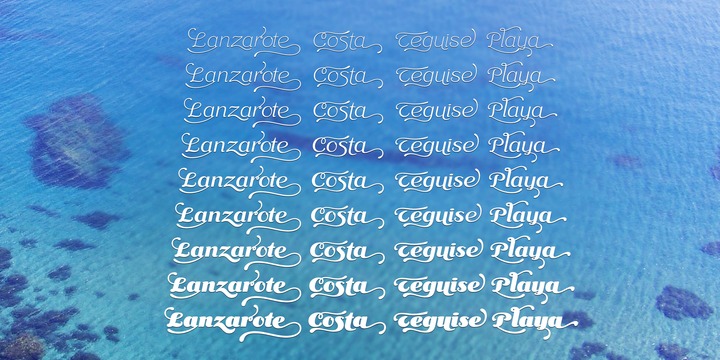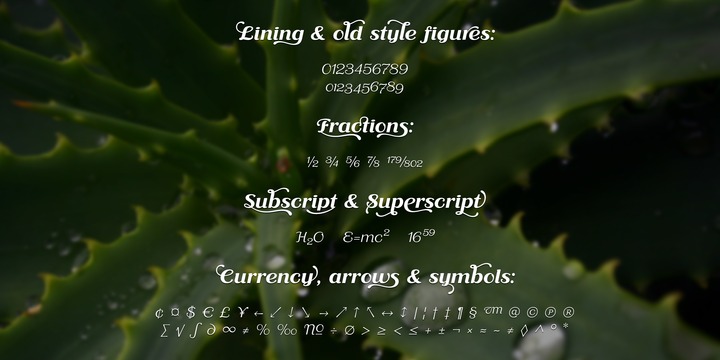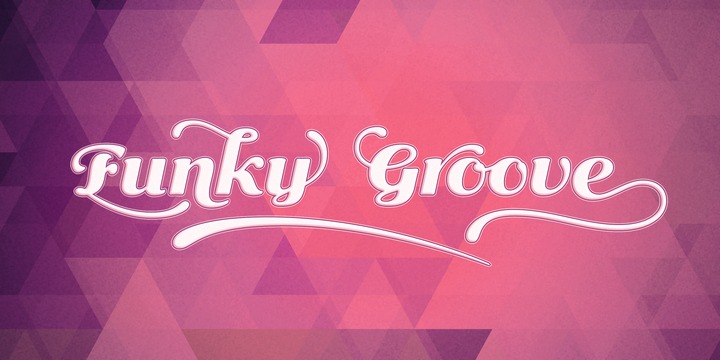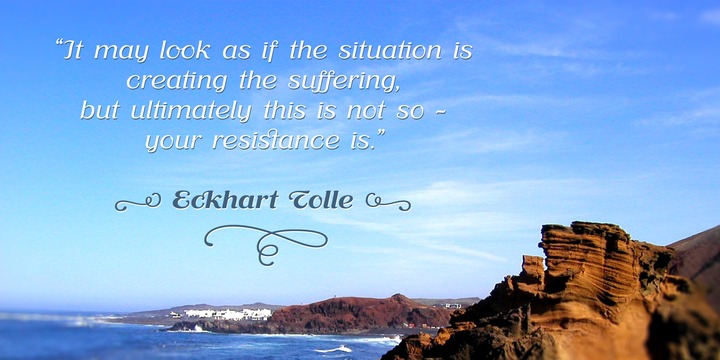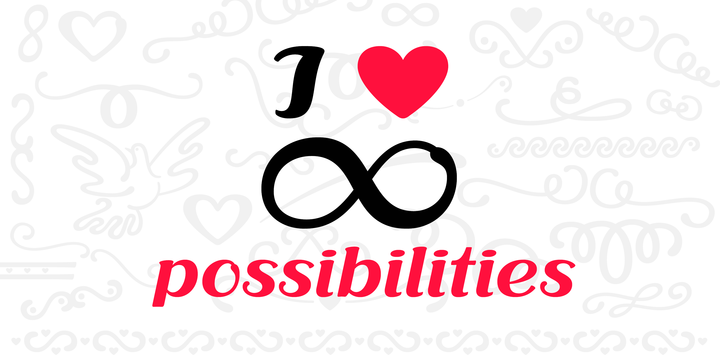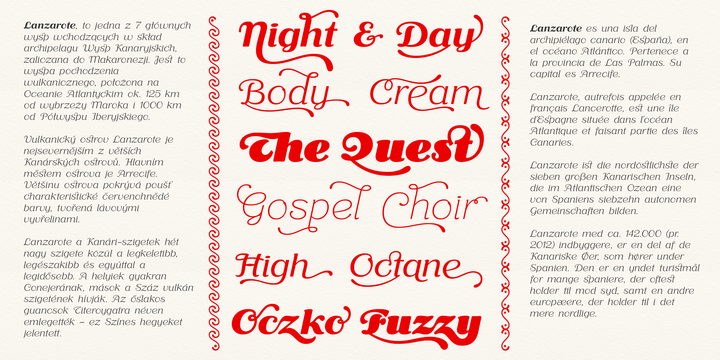
Aloe Font Family
Aloe is a display font family inspired by headlines from 1930’s newspapers and hand writing.
The family consists of 9 weights, ranging from Thin to Heavy, with matching ornament fonts.
Each weight has over 900 glyphs including advanced typographic features, such as vast number of stylistic alternates, swashes, titling and terminal forms, case sensitive forms, ligatures, symbols, ornaments as well as lining and old style figures, fractions, subscripts and superscripts.